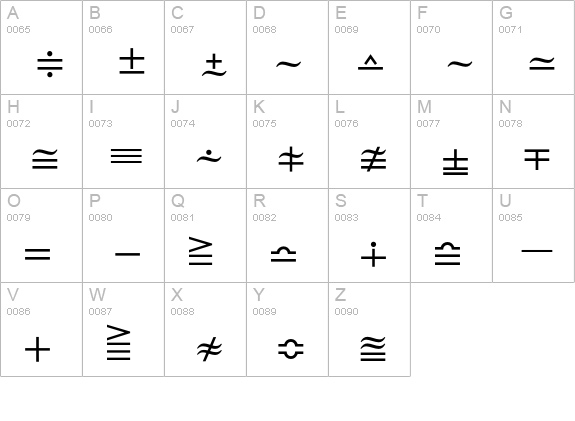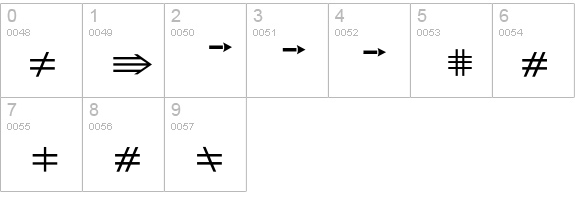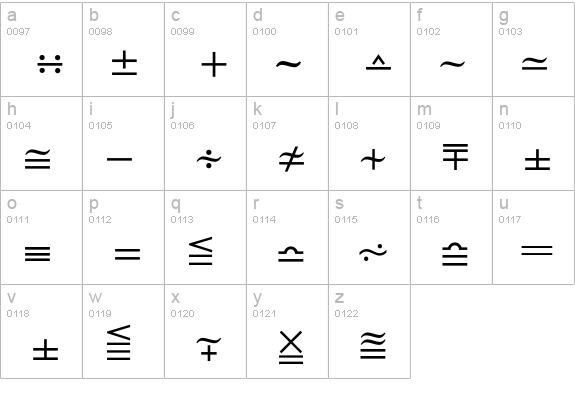
MathTechnicalP03 Font Details
MathTechnicalP03 is a versatile and visually appealing font that is specifically designed for math and technical documents. With its clean lines and precise geometry, this font is perfect for displaying complex equations, formulas, and mathematical symbols with clarity and elegance. The MathTechnicalP03 font is carefully crafted to ensure optimal legibility, making it a valuable tool for mathematicians, scientists, engineers, and anyone working in fields that require the use of mathematical notation. Its crisp and well-defined characters, combined with its consistent spacing, guarantee that even the most intricate mathematical expressions can be easily understood. What sets MathTechnicalP03 apart is that it is available for free download at FontsMarket.com. This means that you can access and utilize this exceptional font without any cost. Its accessibility allows for seamless integration into your projects, whether they are academic papers, research articles, or technical reports. Furthermore, MathTechnicalP03 supports a wide range of mathematical symbols and special characters, ensuring that you have all the tools you need to accurately represent complex mathematical concepts. Its comprehensive character set includes everything from basic operators and Greek letters to advanced mathematical symbols, making it a truly indispensable resource for mathematicians and researchers alike. In addition to its functionality, MathTechnicalP03 also boasts a clean and modern aesthetic that enhances the overall visual appeal of your documents. Its sleek design adds a touch of professionalism to your work, while its readability ensures that your mathematical content remains accessible to all readers. Whether you are a student, a professional, or simply someone who appreciates the beauty of mathematics, MathTechnicalP03 is the ideal font for all your mathematical and technical needs. Download it for free at FontsMarket.com and elevate the clarity and elegance of your mathematical documents to new heights.